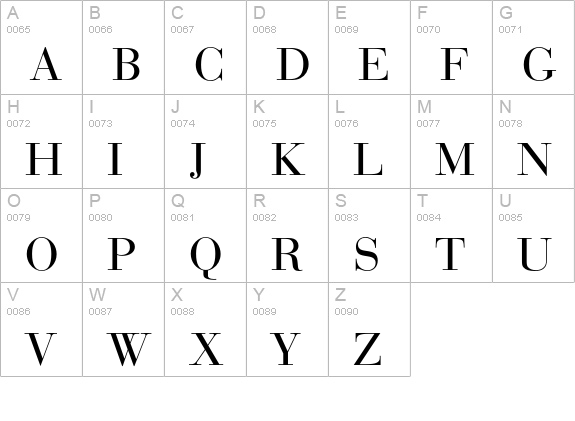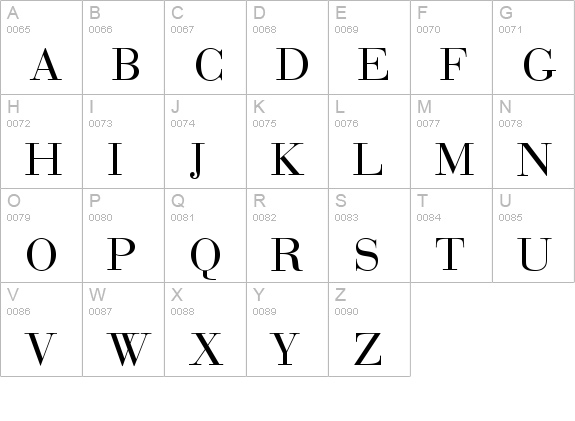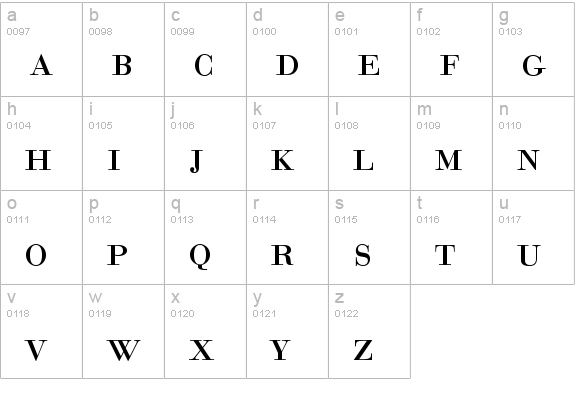
Bauer Bodoni DC D Regular Font Details
Bauer Bodoni DC D Regular is the standard, neutral variant in the Bauer typeface family \xE2\x80\x94 well suited to general body text, paragraphs, and standard typographic work.
Bauer Bodoni DC D Regular font is a classic and elegant typeface that exudes sophistication and refinement. Its timeless design features subtle serifs and graceful curves that make it perfect for creating elegant and professional designs. Whether you're working on a print project or designing a website, Bauer Bodoni DC D Regular font will add a touch of class to your work. What makes this font even more appealing is the fact that it is free to download at FontsMarket.com. This means that you can easily access this high-quality typeface without having to spend a dime. So go ahead and elevate your design projects with Bauer Bodoni DC D Regular font, available for free at FontsMarket.com.